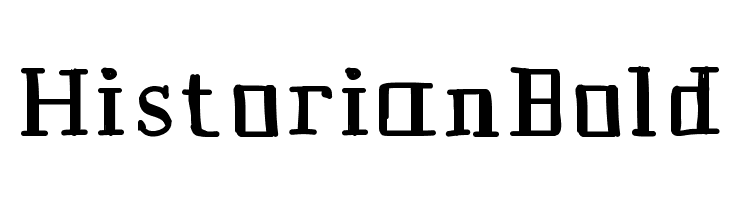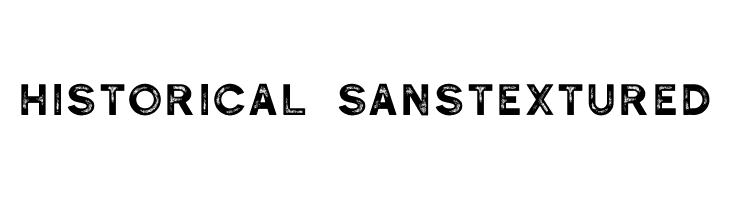
A bold, textured sans-serif font with a vintage, distressed look.
A textured, cursive font with a vintage, handwritten style.
A bold, playful font with thick, rounded strokes and a hand-drawn feel.
A bold slab serif font with a modern yet classic appeal.
A clean, modern monospaced font with uniform character width and geometric shapes.
Decorative vintage-style font with tall, narrow characters.